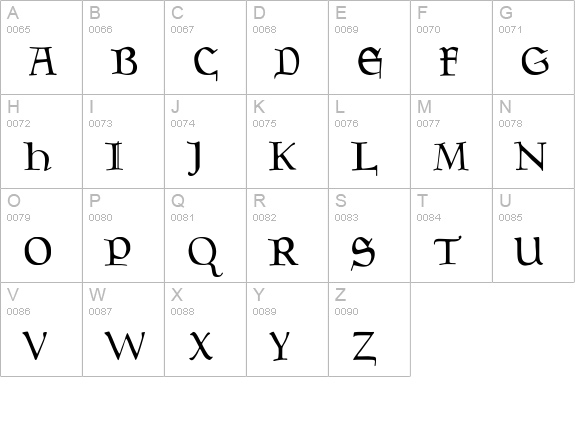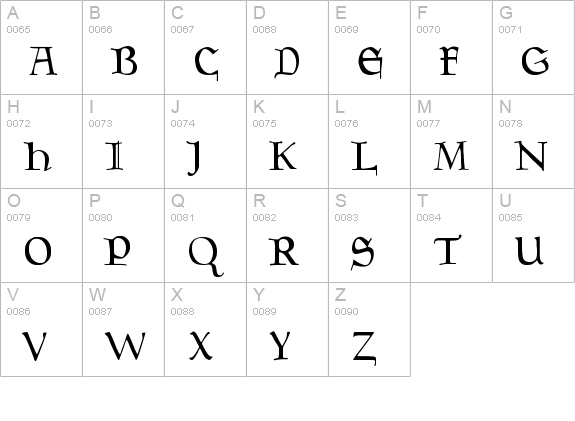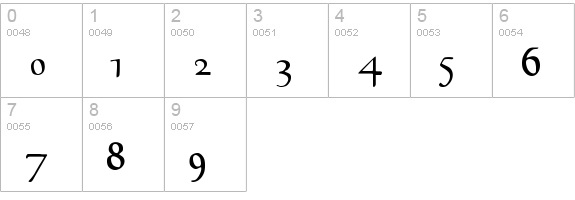
Goudy Medieval font exudes a sense of timeless elegance and sophistication, making it a perfect choice for projects that require a touch of historical charm. This exquisite font features intricate details and a classic design that is sure to captivate any audience. With its old-world charm and distinctive flair, Goudy Medieval font adds a touch of sophistication to any design project. The best part? Goudy Medieval font is available for free download at FontsMarket.com. This means you can easily access this stunning font and use it to elevate your designs without any cost. Whether you're working on invitations, branding materials, or any other creative project, Goudy Medieval font is sure to make a lasting impression. Download it today and add a touch of timeless elegance to your designs.